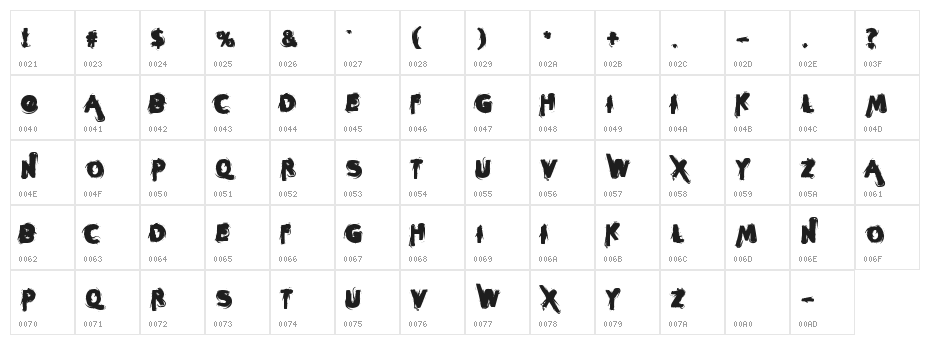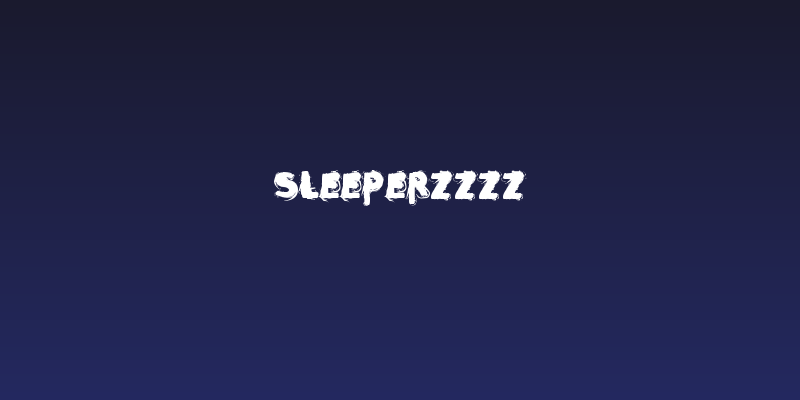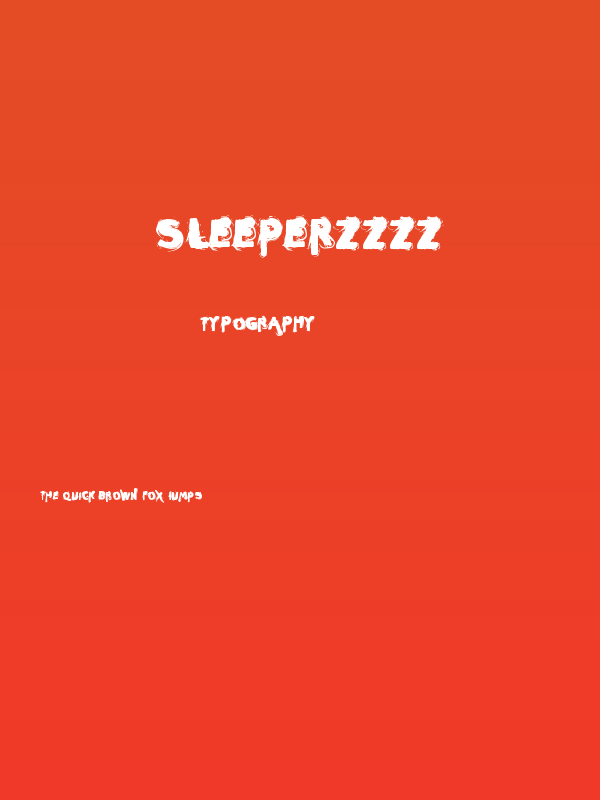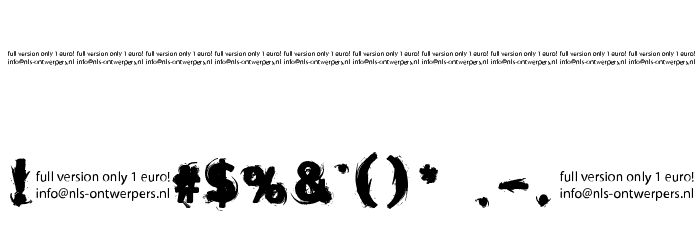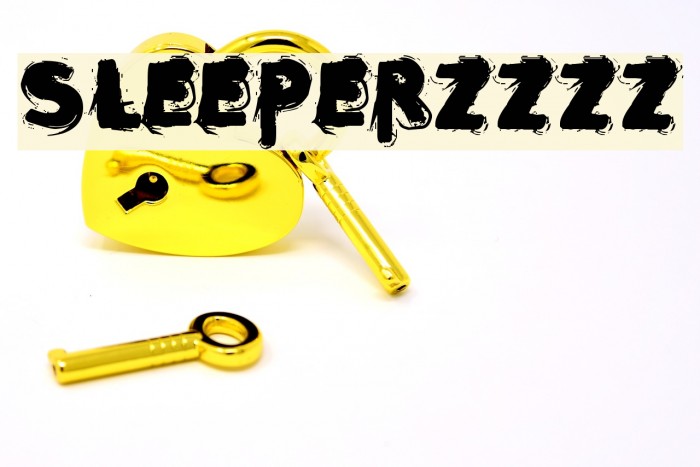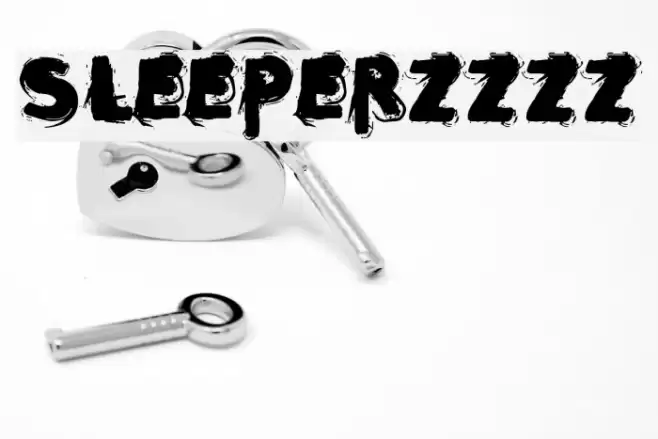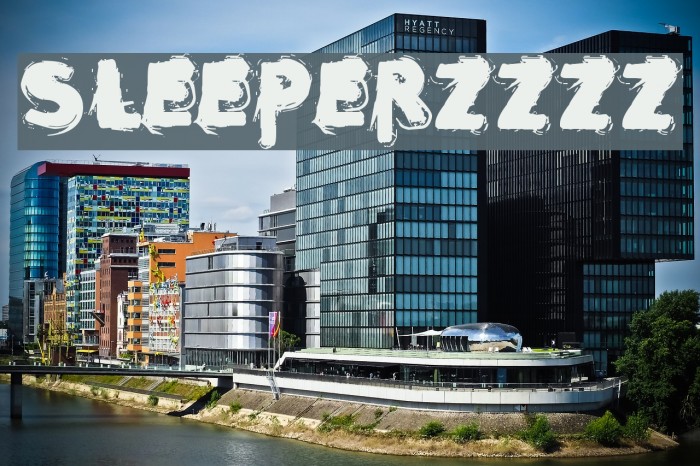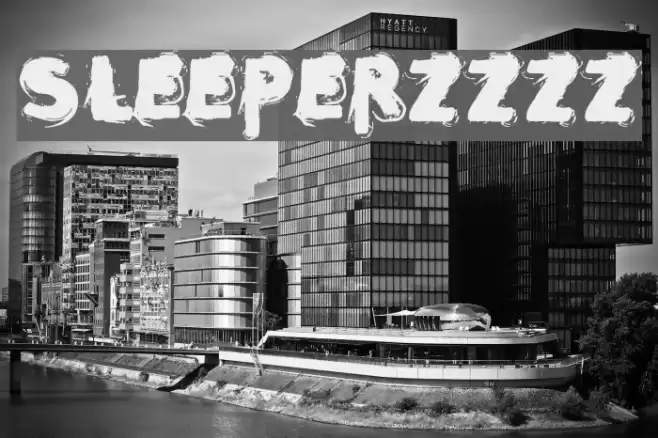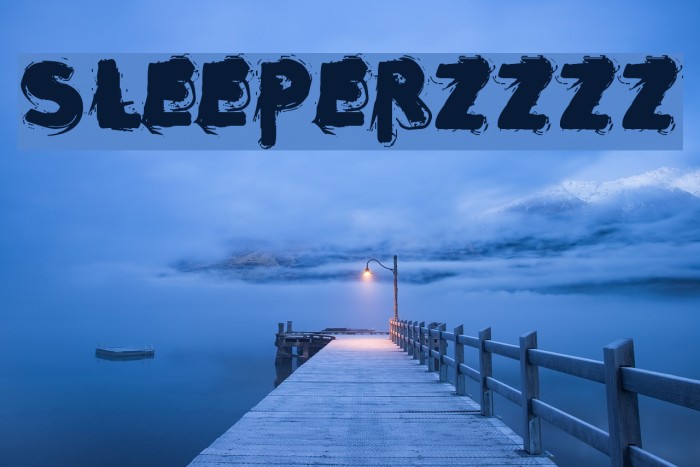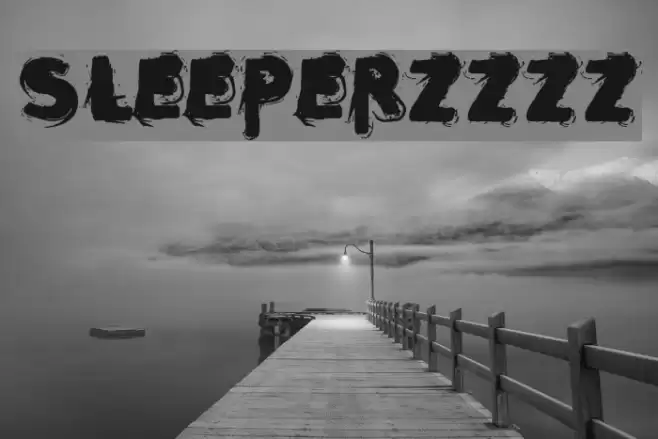
sleeperzzzz Font
✎ Distorted Eroded
sleeperzzzz Description
This font features a bold and dynamic brushstroke style, giving it an energetic and artistic appearance. The characters are crafted with a rough, textured edge, reminiscent of hand-painted lettering. This design choice adds a sense of movement and spontaneity, making it ideal for creative and expressive projects. The uppercase and lowercase letters maintain a consistent style, with a slightly irregular form that enhances its handmade look. The numerals and special characters follow the same aesthetic, ensuring a cohesive visual experience across all text elements.
| Overall Style | Artistic, Energetic, Expressive |
| Proposed Projects | Ideal for posters, album covers, branding for creative industries, and any project requiring a bold, artistic touch. |